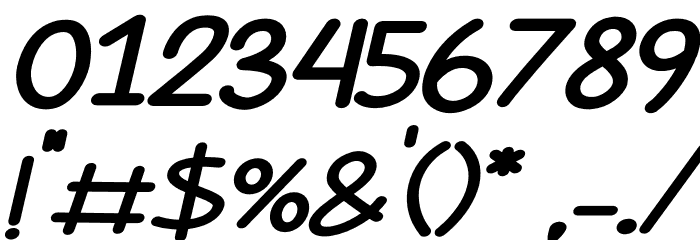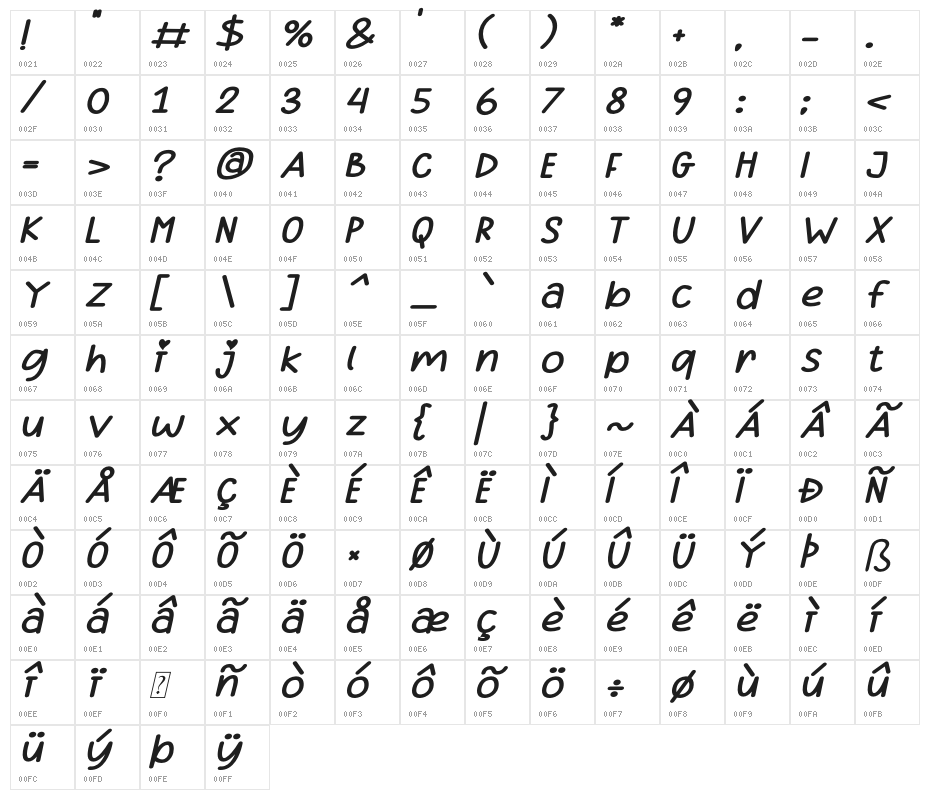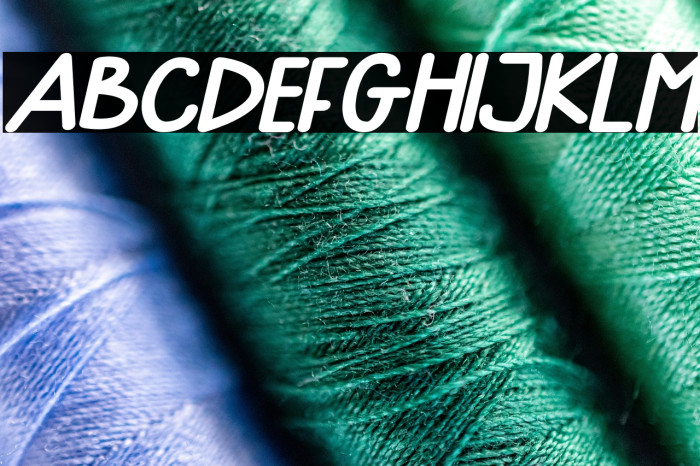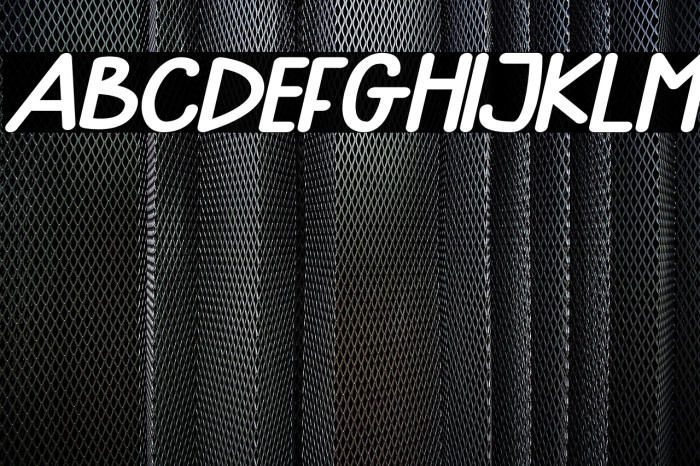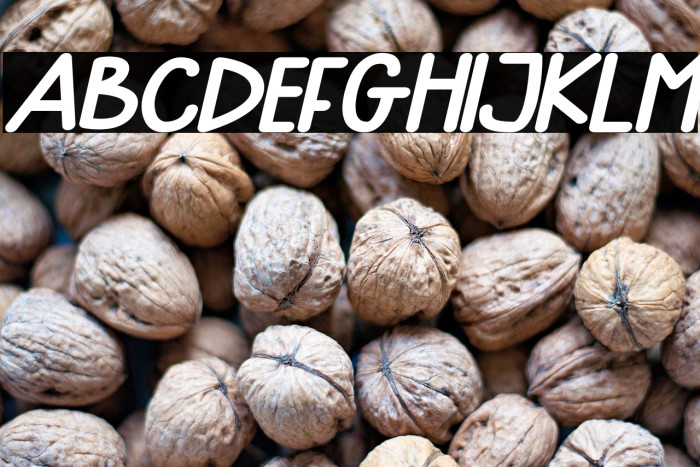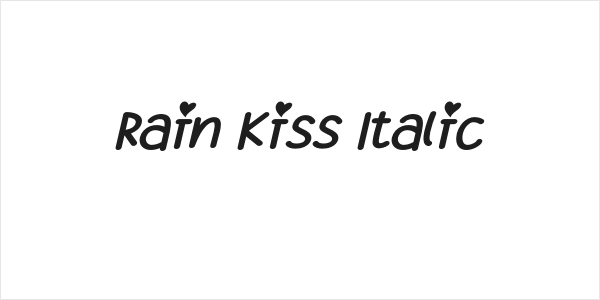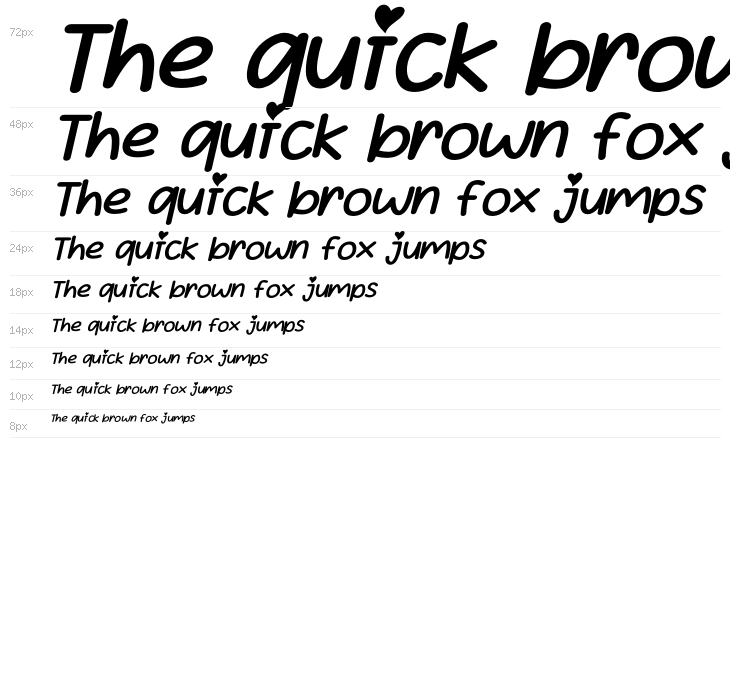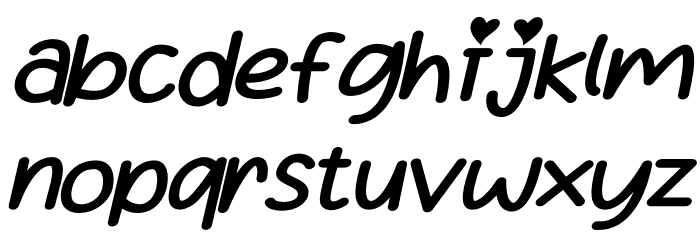
Rain Kiss Italic Font
Rain Kiss Italic Description
This font features a playful and whimsical style, characterized by its smooth, flowing curves and rounded edges. The letters are slightly slanted, giving it an italic appearance, which adds to its dynamic and lively feel. The uppercase and lowercase letters maintain a consistent style, with some unique embellishments, such as the heart-shaped dots on the lowercase 'i' and 'j'. The numerals are bold and clear, matching the overall aesthetic of the alphabet. Special characters are well-integrated, maintaining the font's cohesive look. This font is ideal for projects that require a fun and informal touch.
| Proposed Projects | Perfect for greeting cards, children's books, playful branding, and social media graphics. |